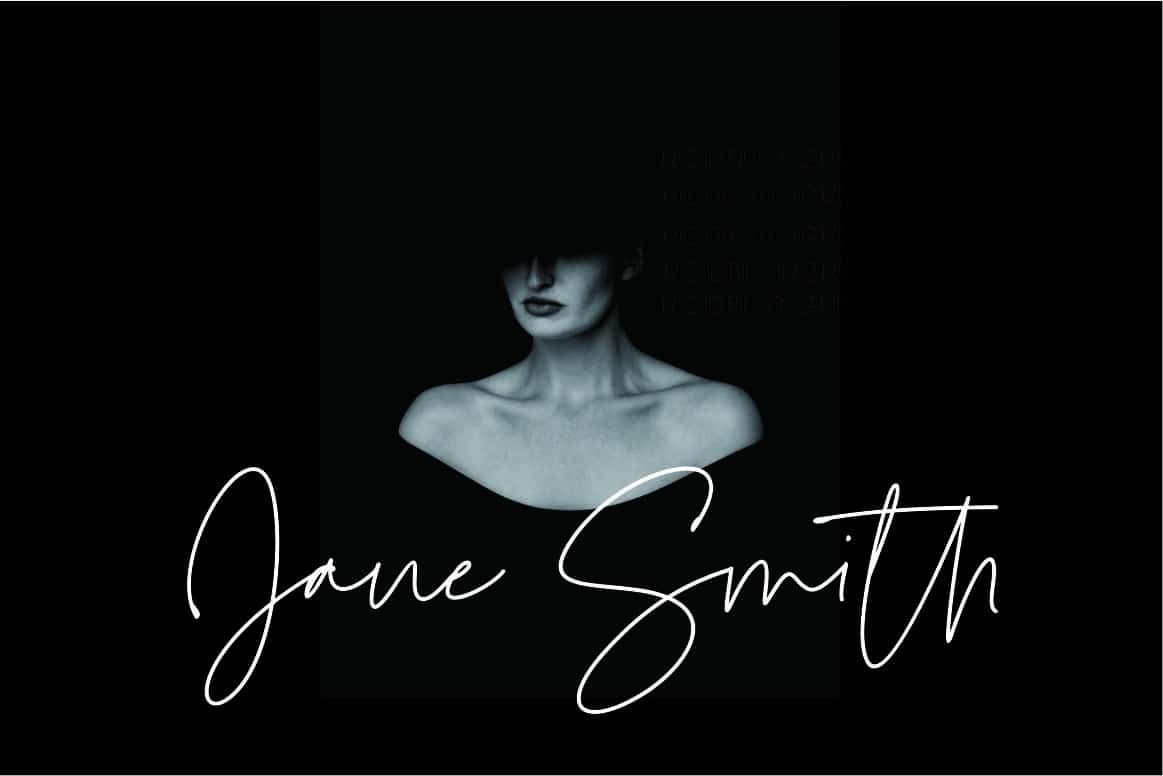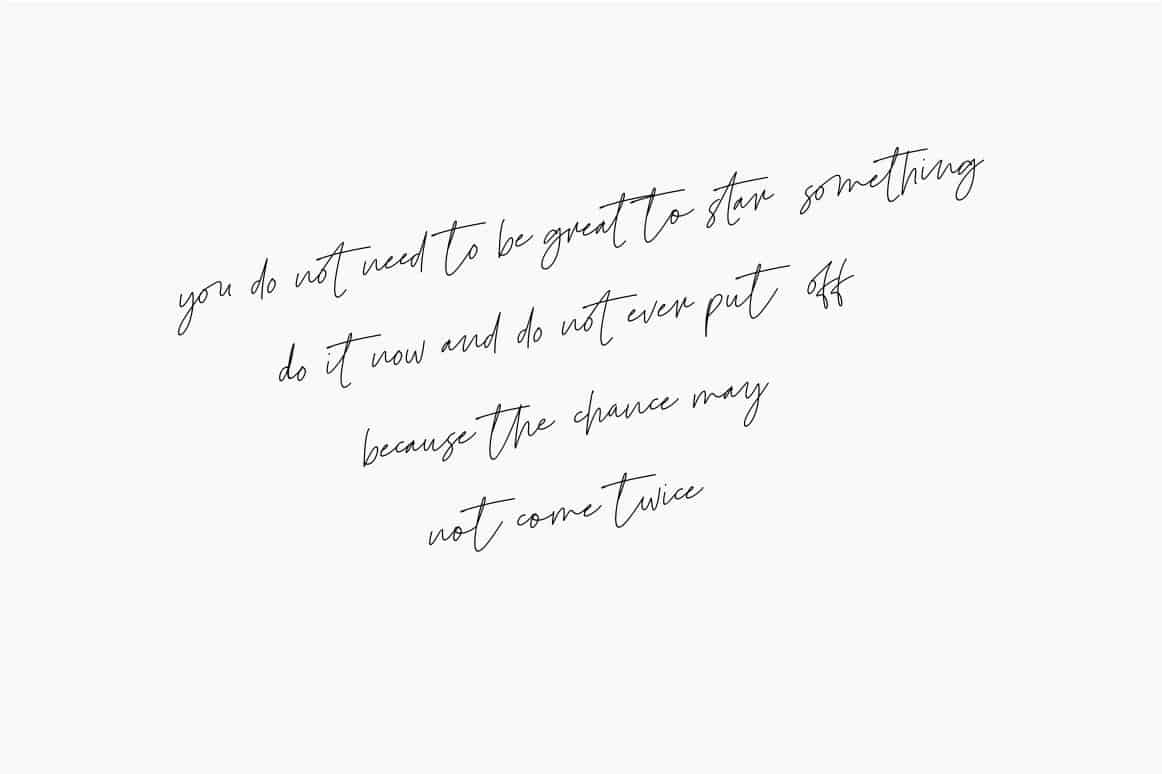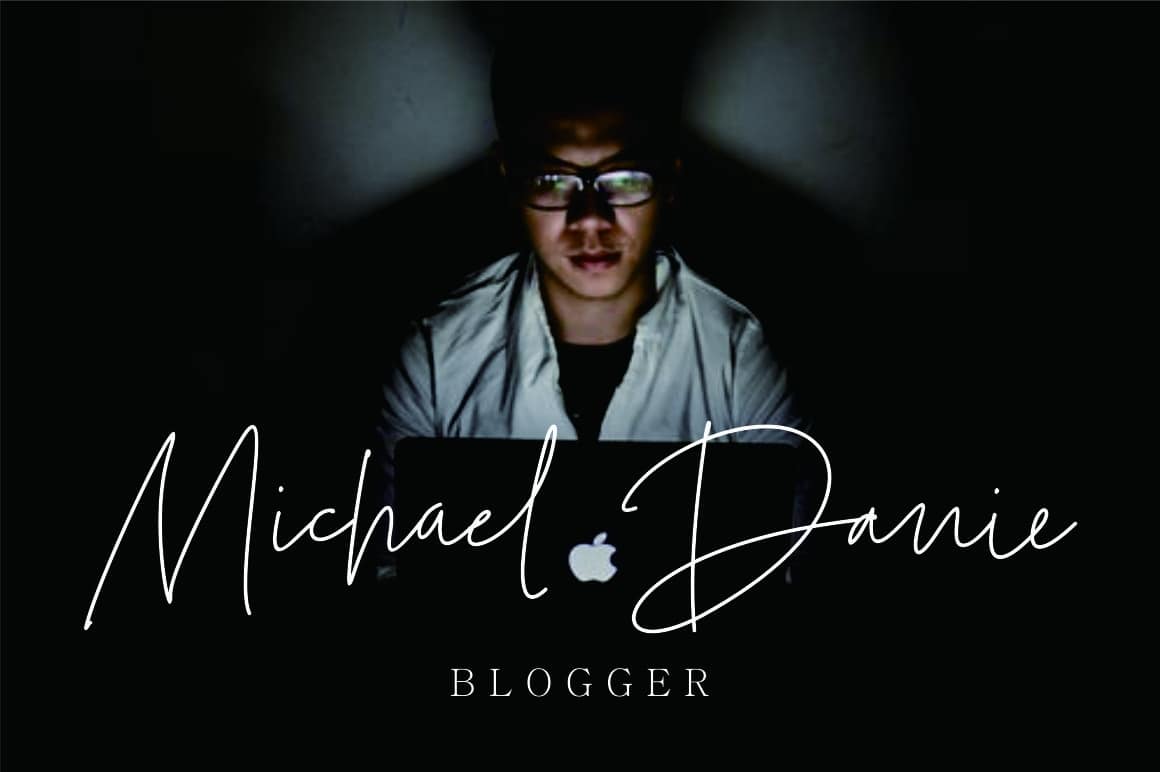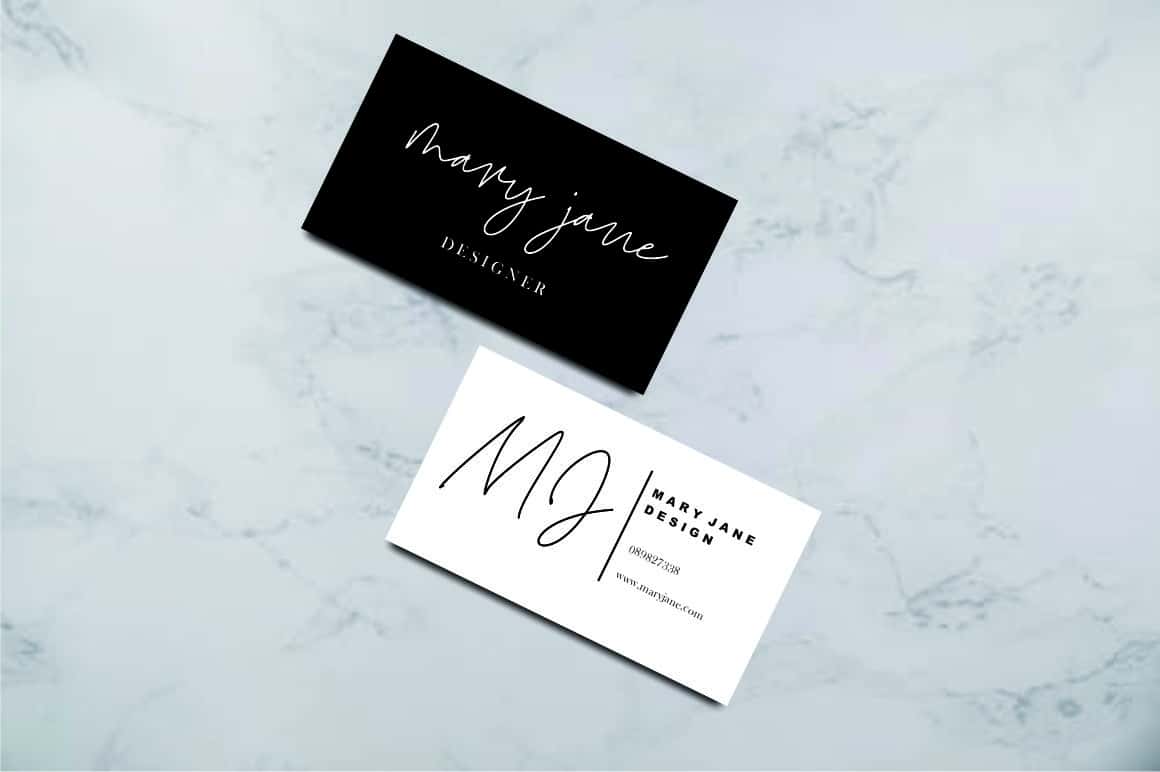
Le Festin Font
Le Festin – Font is a new stylish script font. It’s perfect for logo, branding, tittle, social media posts, advertisements, product packaging, product designs, label, photography, watermark, magazine, web design, etc.